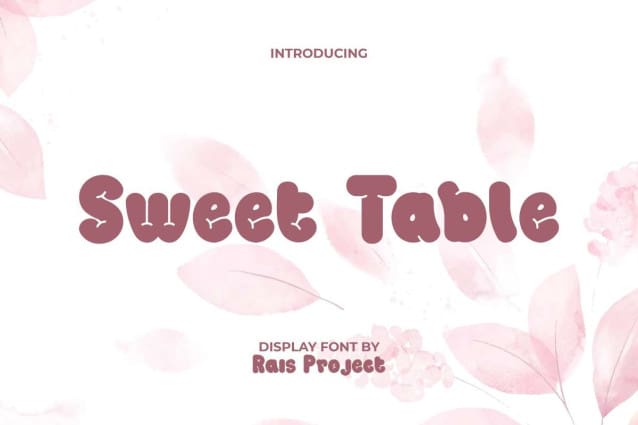
Sweet Table Font
Sweet Table Font is a fluffy decorative display font. This font is inspired by a cute inflated balloon that looks soft like a cake. Use this font to see the cuteness of your various designs, such as brochure, business card, custom design, greeting card, invitation, label, poster, product packaging, quote, screen printing, signage, stationery, sticker, website, etc.
Sweet Table Font comes with full set of Uppercase and Lowercase basic character, Numerals, a large range of Punctuation to make it blended. The characters on this font will make it even more stunning. So perfect for many industries, such as accessories, advertisement, café, cartoon, comic, fashion, game, homeware, kids stuff, publishing, and many more!